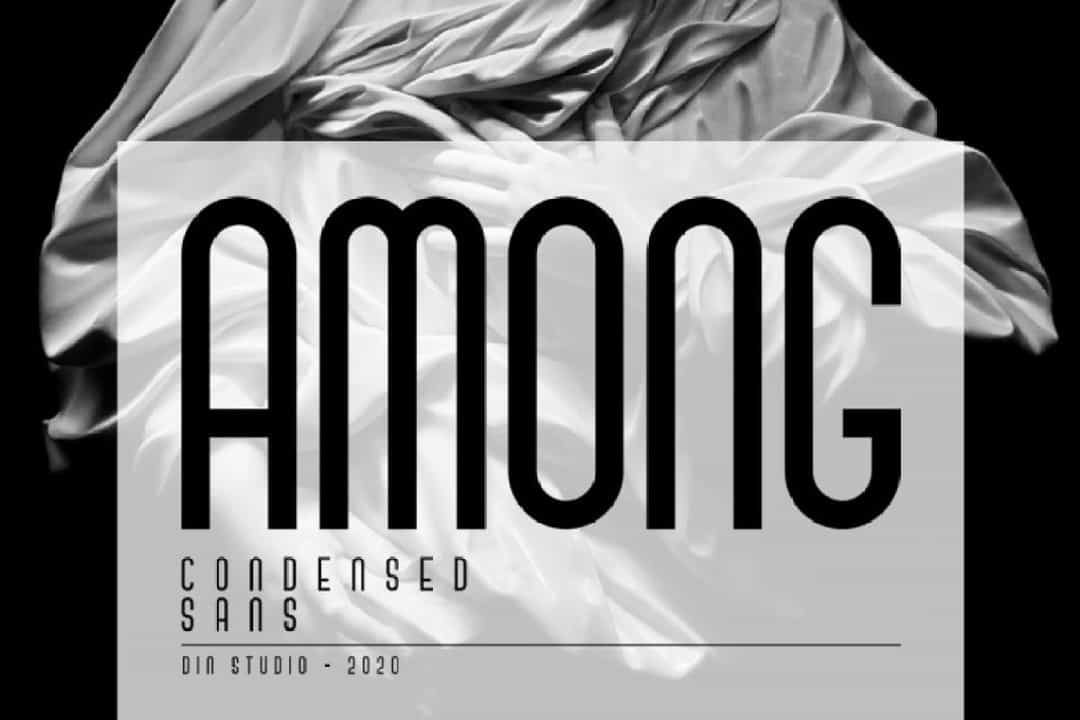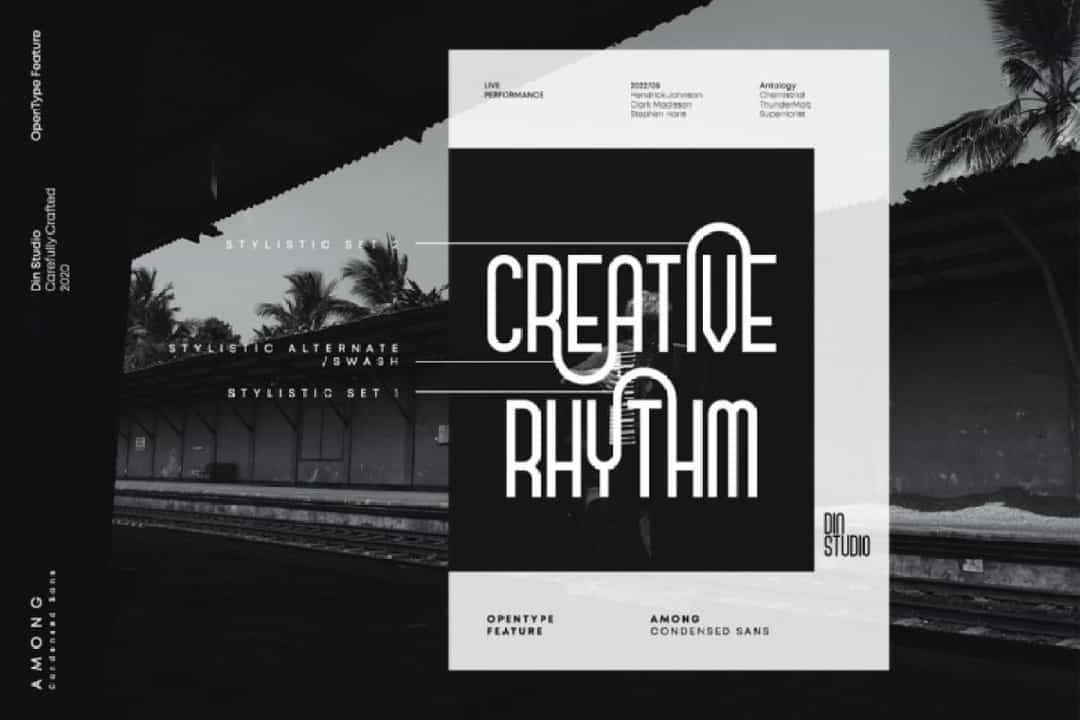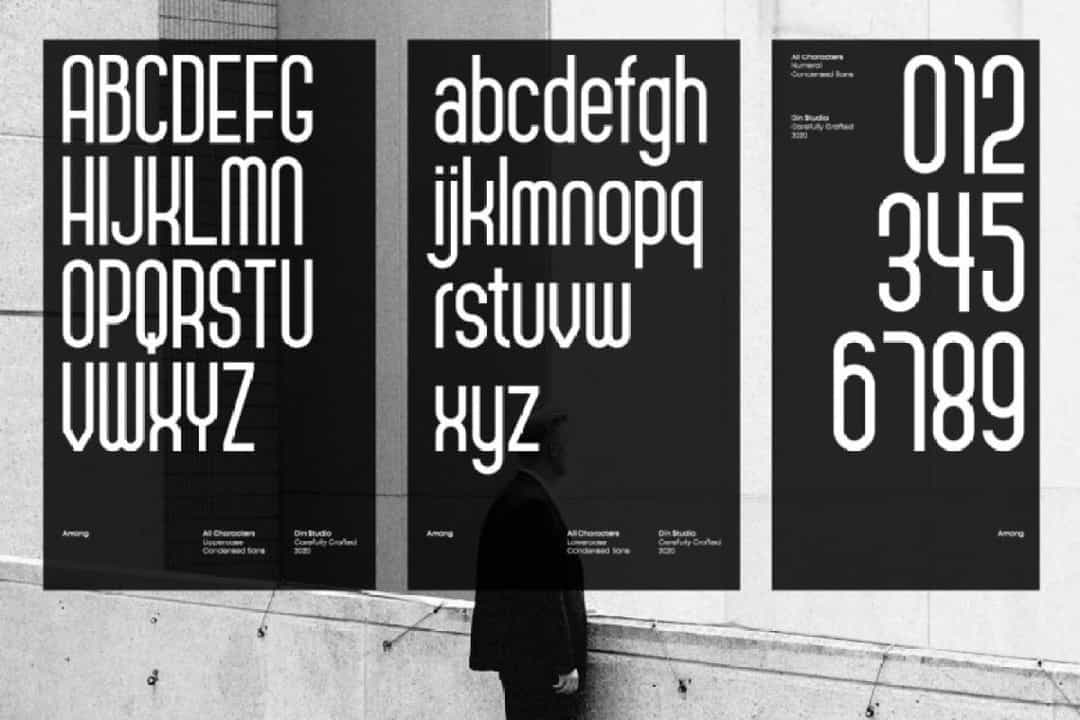
Discover Among Condensed Sans Serif Font, part of the Sans Serif Display Basic collection—a versatile and unique font perfect for adding a personal touch to your projects. Download it for free and enjoy crafting designs with style, from invitations to social media posts. This font is available exclusively for personal use, giving you the freedom to create without limits. Unlock your creativity with Among Condensed Sans Serif Font today!
It is a sans serif font specifically designed for professional use in branding, printing, and quotes and among other professional projects. Every letter has its own beauty that can be used to create logos or badges and other uses such as packaging, headline posters, T-shirt and apparel, greeting cards, wedding invitations and more.